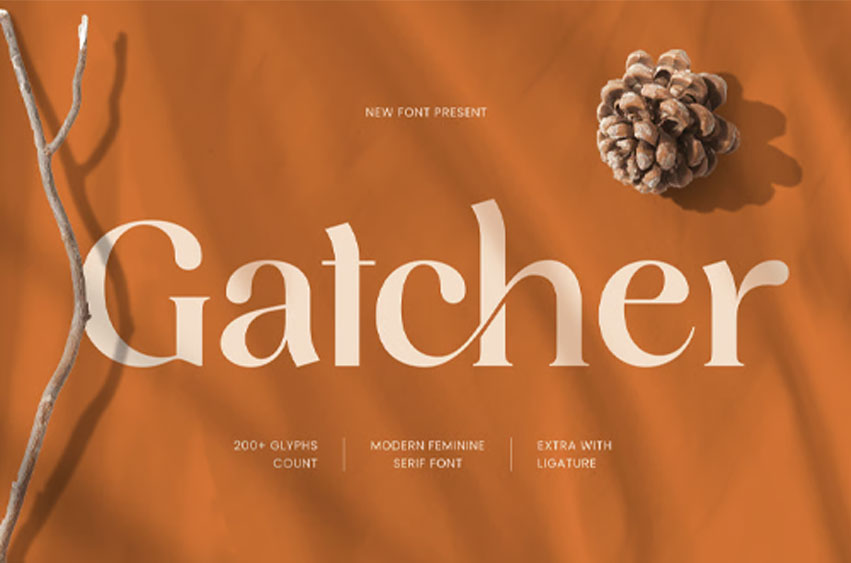
Gatcher Font
Gatcher Font is a modern feminine serif font designed to bring elegance, softness, and high-end confidence to your typography. With refined serif details, graceful proportions, and a polished modern feel, this typeface creates a chic visual tone that’s perfect for premium design aesthetics.
Built for branding-forward projects, Gatcher performs beautifully across logos, wordmarks, product packaging, website headers, lookbooks, magazine layouts, invitations, and social media campaigns. Its feminine character and clean readability make it ideal for both bold headlines and sophisticated supporting text in luxury-driven layouts.
Whether you’re crafting a beauty brand, fashion label, boutique identity, wedding stationery, or upscale editorial design, Gatcher delivers a timeless modern serif foundation that feels stylish, elegant, and unmistakably premium.
Inspiration Behind Gatcher
Gatcher is inspired by contemporary luxury typography—where femininity meets structure and elegance meets clarity. The design draws from fashion editorial aesthetics and modern serif refinement, creating a graceful type system that elevates branding with a confident, high-end presence.
Gatcher Font Features:
• Modern feminine serif letterforms with refined elegance
• Perfect for luxury branding, fashion, beauty, and boutique identities
• High readability for headlines, logos, and editorial typography
• OpenType features for clean, professional typesetting
• Logos, wordmarks, and premium brand identity systems
• Fashion editorials, magazines, lookbooks, and headlines
• Beauty, skincare, perfume, and luxury product packaging
• Wedding invitations, event stationery, and elegant labels
• Social media campaigns, websites, and marketing visuals
Elevate your luxury branding with Gatcher—crafted for modern feminine serif elegance and timeless style.